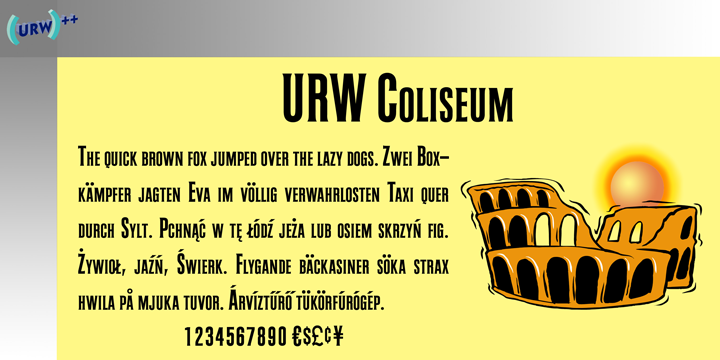
The Coliseum Font is perfect for epic historical design projects including ancient Rome documentaries, gladiator movie titles, historical museum displays, classical architecture presentations, epic sports event branding, arena entertainment marketing, historical fiction book covers, and monumental cultural institution materials. This commanding typeface brings imperial grandeur and ancient Roman majesty to any design project requiring powerful, architectural typography with authentic classical character and epic entertainment appeal.
What makes Coliseum Font so exciting is its magnificent embodiment of Roman imperial architecture with monumental letterforms that capture the essence of ancient amphitheater grandeur and gladiatorial spectacle. The letters feature arena-inspired characteristics with classical proportions that create an immediate sense of epic scale and historical magnificence. This distinctive imperial character makes it perfect for brands and projects that want to communicate ancient power, epic entertainment, and the compelling appeal of Roman civilization and monumental architectural heritage.
The Coliseum Font family typically includes regular and bold weights, often with stone-carved variations and classical decorative elements. Many versions feature Roman symbols, architectural glyphs, and imperial design elements that enhance its authenticity for historical and epic entertainment applications.
Whether you're designing for sports arenas, historical entertainment, or cultural institutions, Coliseum Font Free Download offers the perfect solution for projects that need to convey epic grandeur and ancient authority. This font transforms standard text into monumental designs that immediately communicate imperial power, epic entertainment value, and the awe-inspiring appeal of ancient Roman architectural magnificence to audiences seeking epic experiences and historical grandeur.